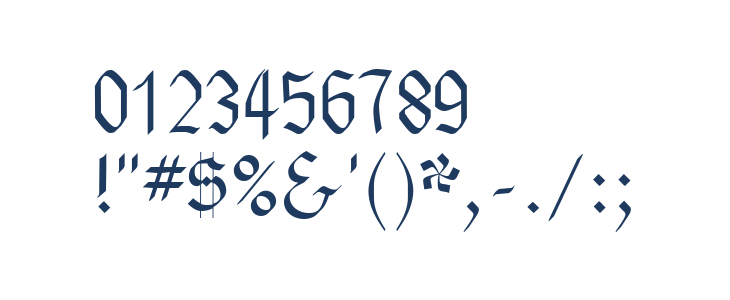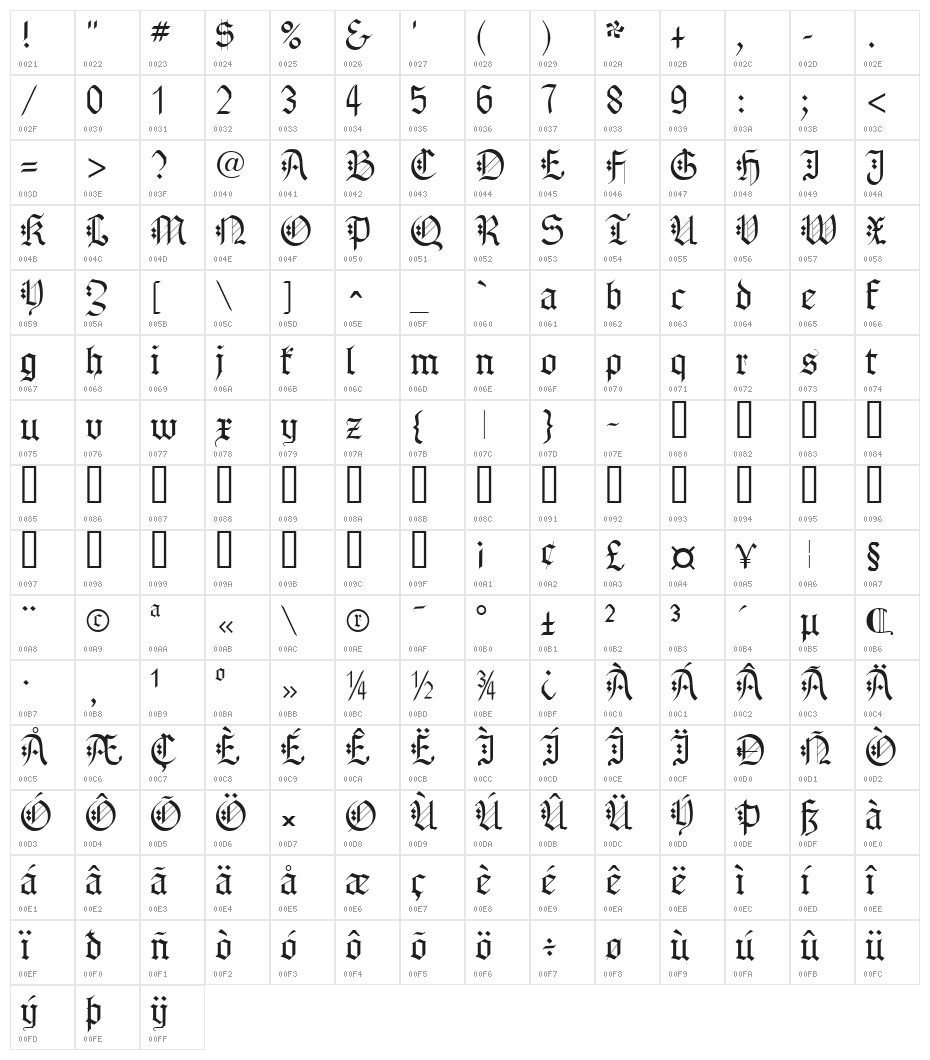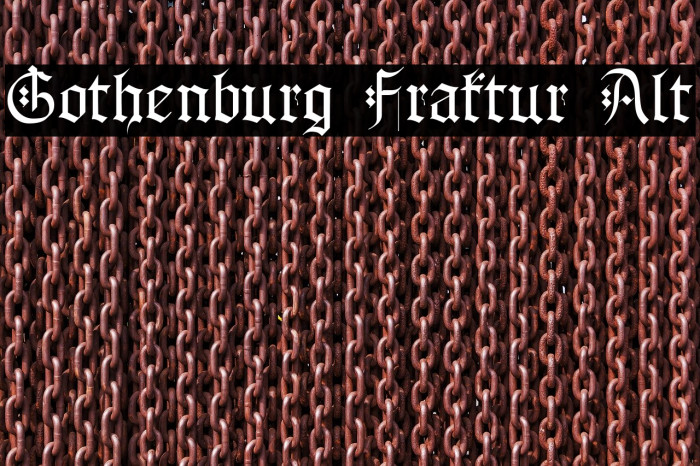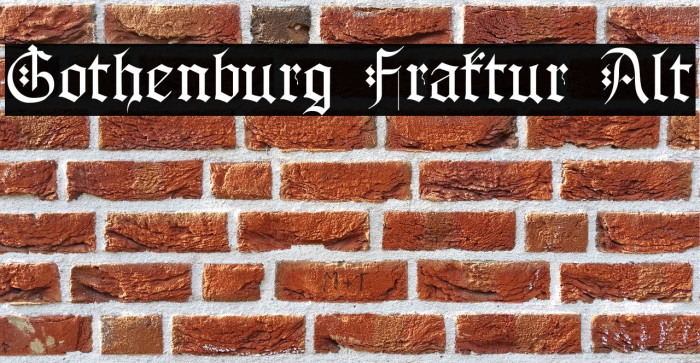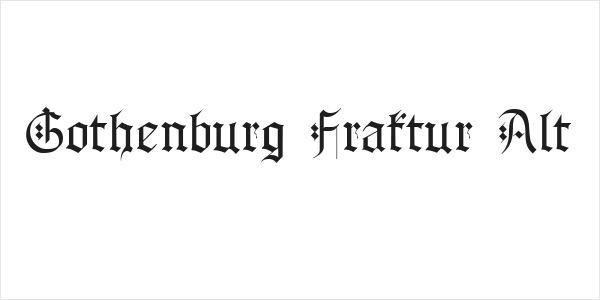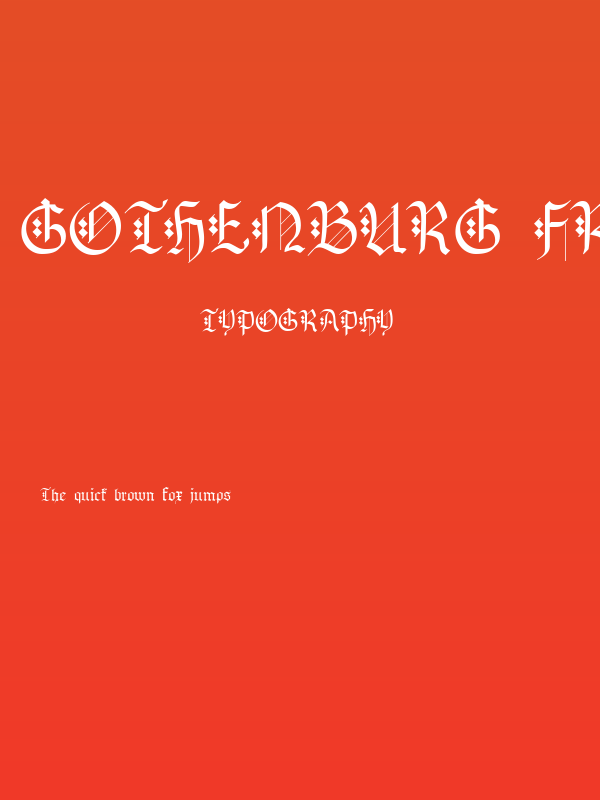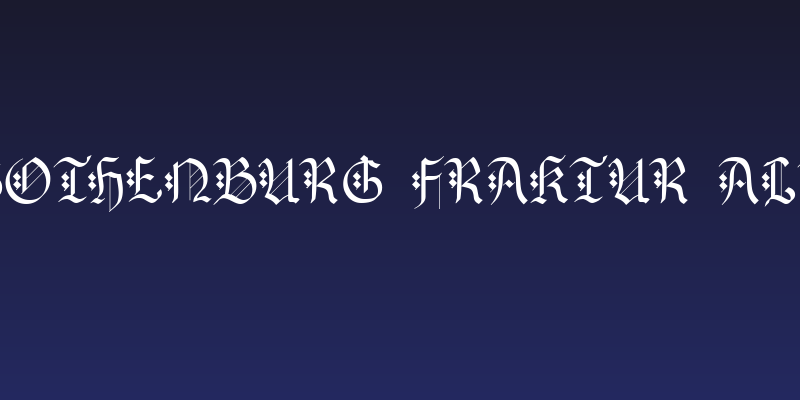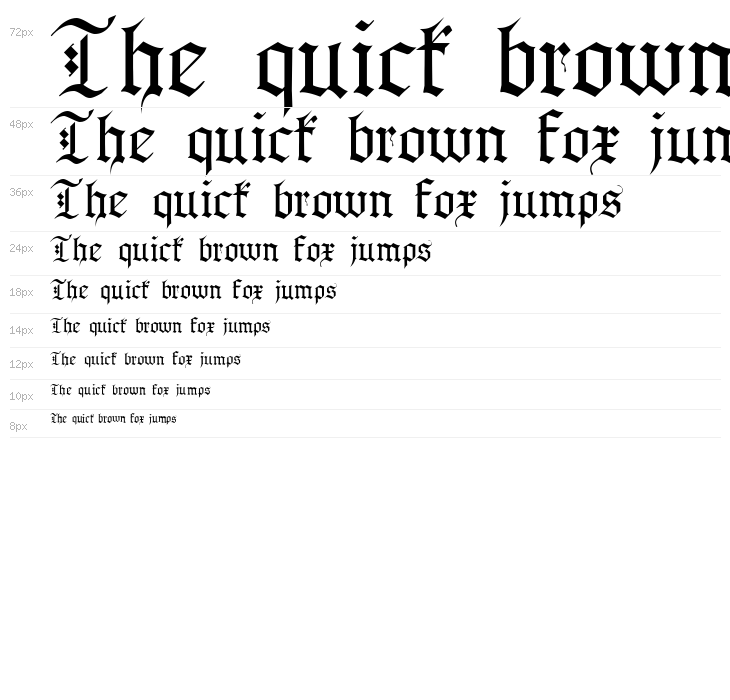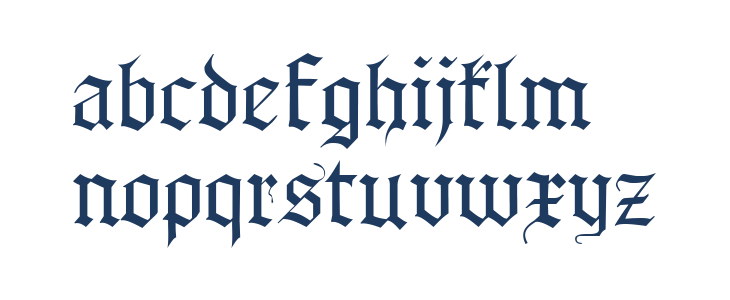
Gothenburg Fraktur Alt Font
Gothenburg Fraktur Alt Description
This font embodies the traditional elegance of blackletter typography, characterized by its intricate and ornate design. The uppercase letters exhibit sharp, angular strokes with decorative elements, while the lowercase letters maintain a consistent style with a slightly more rounded appearance. The numerals are bold and distinct, matching the overall aesthetic. Special characters are designed with the same attention to detail, enhancing the font's historical and formal appeal. This typeface is reminiscent of medieval manuscripts and heraldic scripts, offering a sense of grandeur and sophistication.
| Proposed Projects | Ideal for historical documents, certificates, book covers, or any project requiring a classic, medieval touch. |